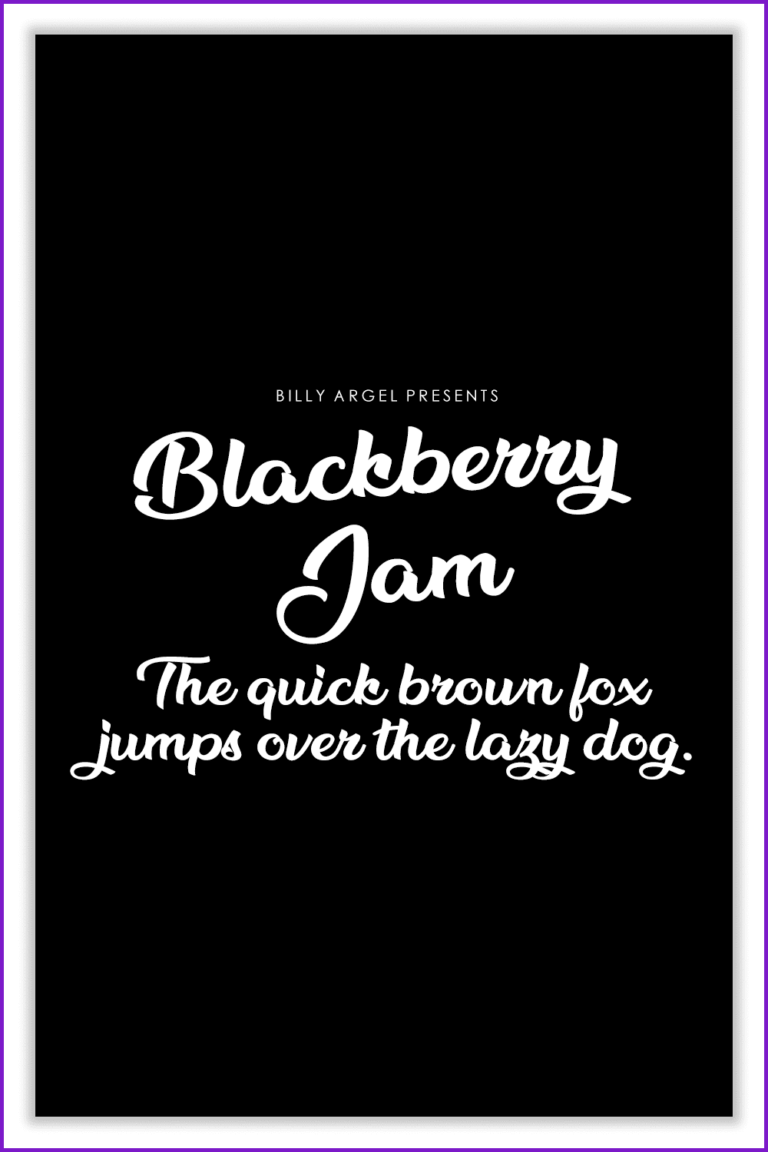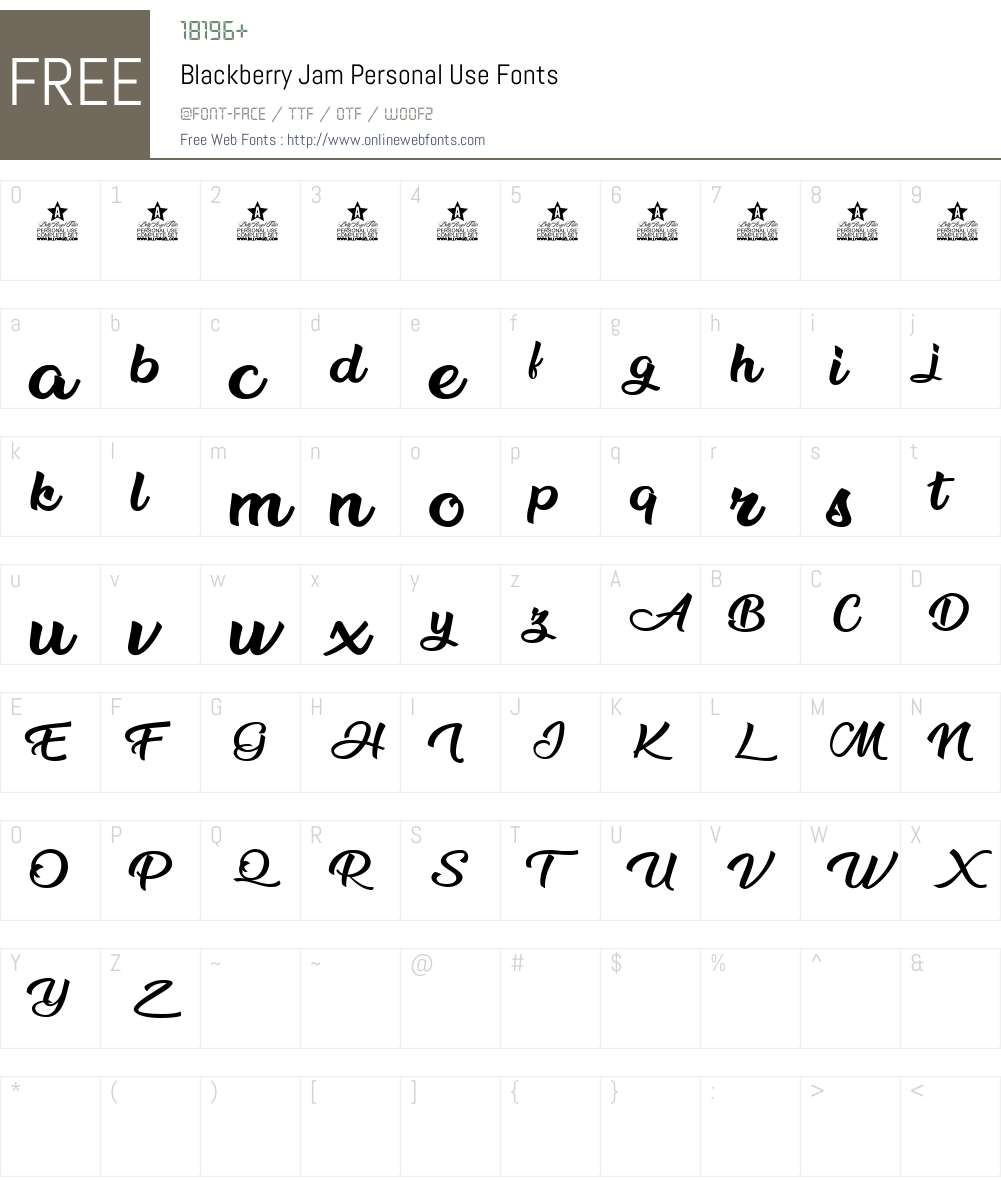
Blackberry Jam Font . ️ customize your own preview on ffonts.net to make sure it`s the right. 56,101 downloads (8 yesterday) 1 comment free for personal use. free download of blackberry jam font. Released in 2018 by billy argel fonts and licensed. Blackberry jam fonts for websites and design projects. This font has 1 variant. get your very own free download of the blackberry jam font, designed and created by billy argel fonts ®. blackberry jam is a script type font that can be used on any device such as pc, mac, linux, ios and android. download blackberry jam personal use font · free for personal use · by billy argel /billy argel fonts (copyright). the blackberry jam personal use font contains 282 beautifully designed characters. free blackberry jam font in ttf, woff2 or otf format. download free blackberry jam font, view its character map and generate text.
Blackberry Jam Billy Argel Fonts
Blackberry is a fun, mismatched font. It has a unique and quirky look Blackberry Jam Font free download of blackberry jam font. download blackberry jam personal use font · free for personal use · by billy argel /billy argel fonts (copyright). get your very own free download of the blackberry jam font, designed and created by billy argel fonts ®. download free blackberry jam font, view its character map and generate text.. Blackberry Jam Font.